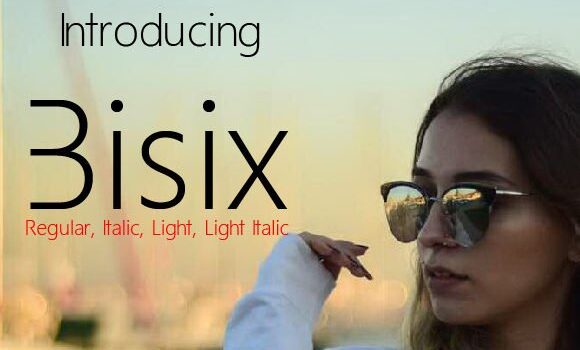
bisix
Bisix Font – Free Download Introduction to Bisix Font The Bisix is a fresh and clear, minimalist sans-serif font perfect for any modern styled projects. 📸 Preview Gallery 2 images 📌 Product Name Bisix Font 👤 Author da_only_aan 📂 Category